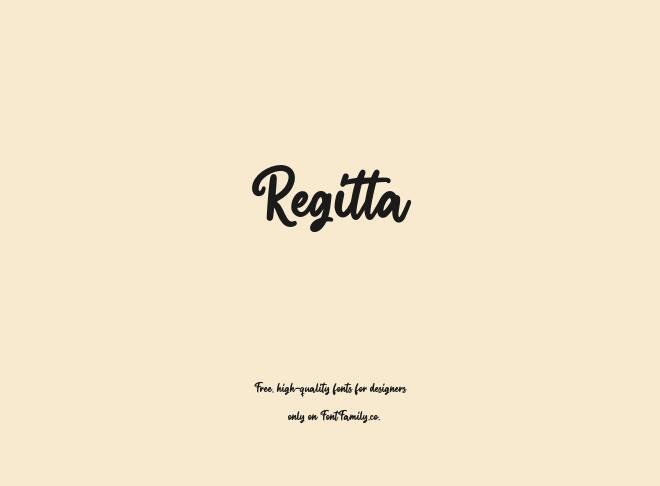
Regitta Font
Regitta Font is a stylish and contemporary handwritten script font designed by TypeFactory. With its modern and decorative style, Regitta Font brings a touch of elegance and sophistication to any design project. Its smooth curves and flowing lines make it an excellent choice for branding, logo design, invitations, and social media posts. Compared to other fonts, Regitta Font stands out with its unique character design and legibility. Whether you're a graphic designer or a business owner, using Regitta Font in your designs can help create a professional and appealing visual impact. It's a free font for personal use, making it a cost-effective solution for those who want to add a touch of modernity and style to their designs.